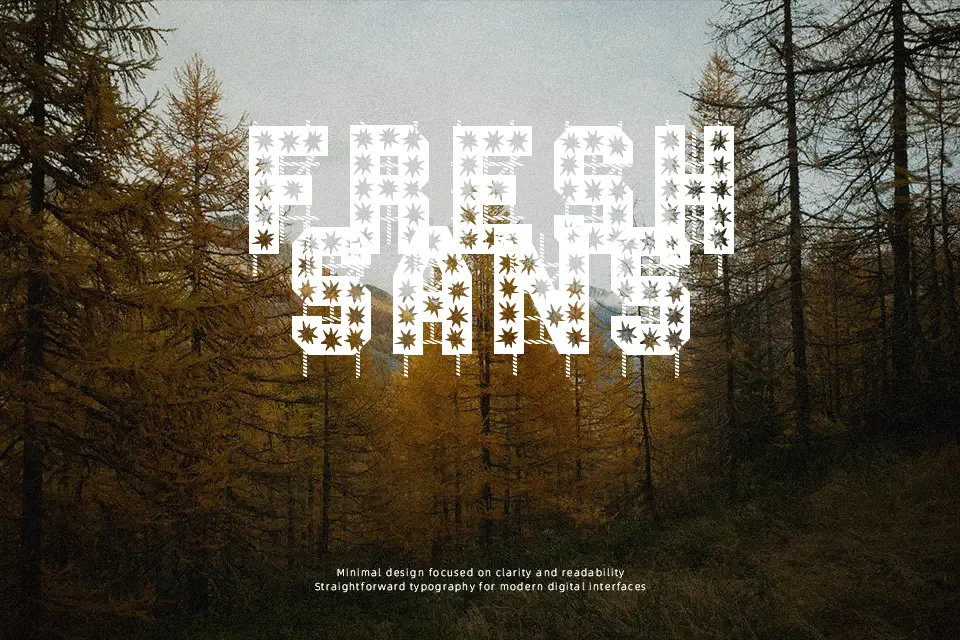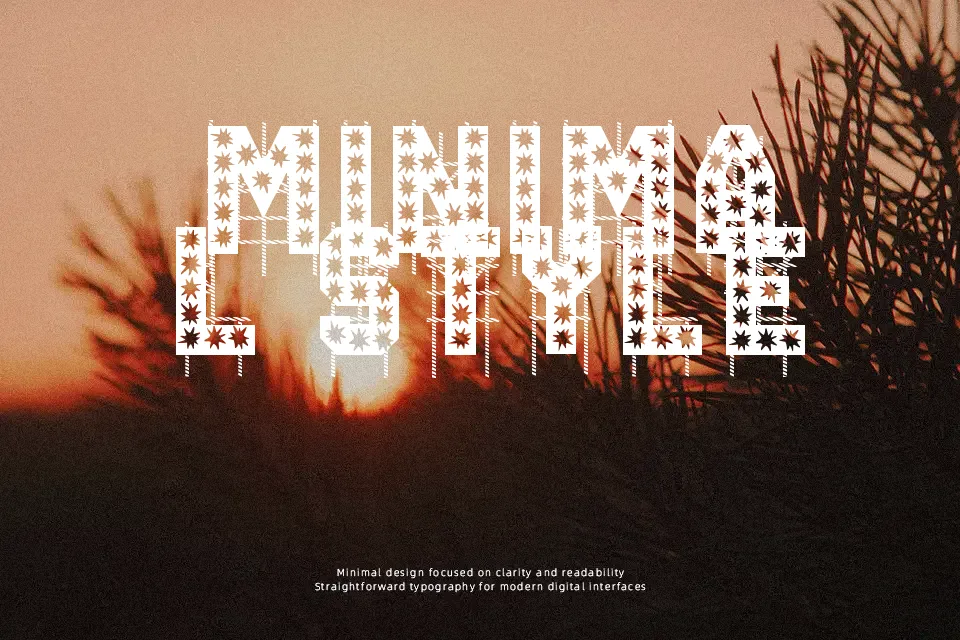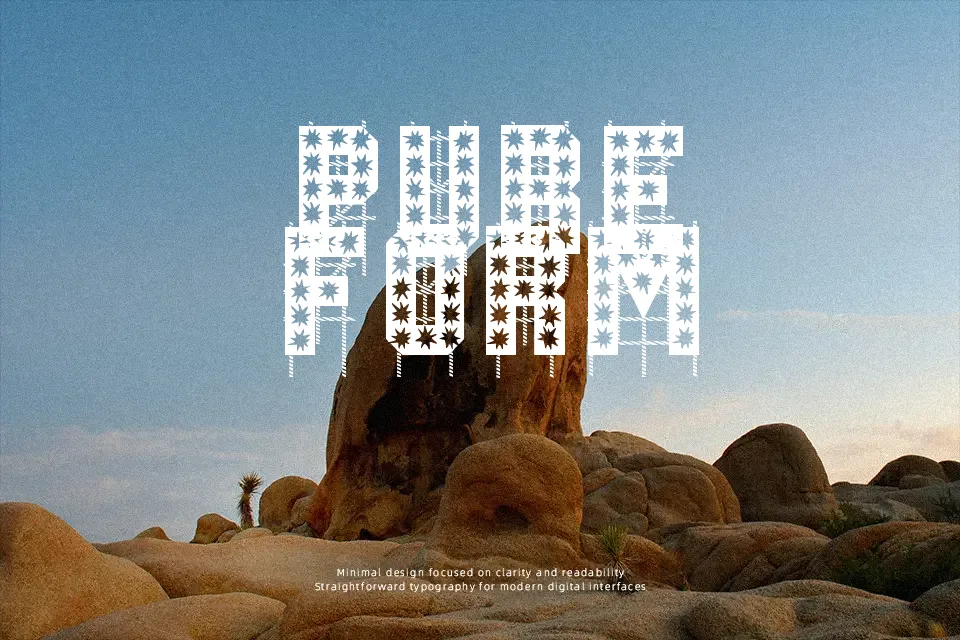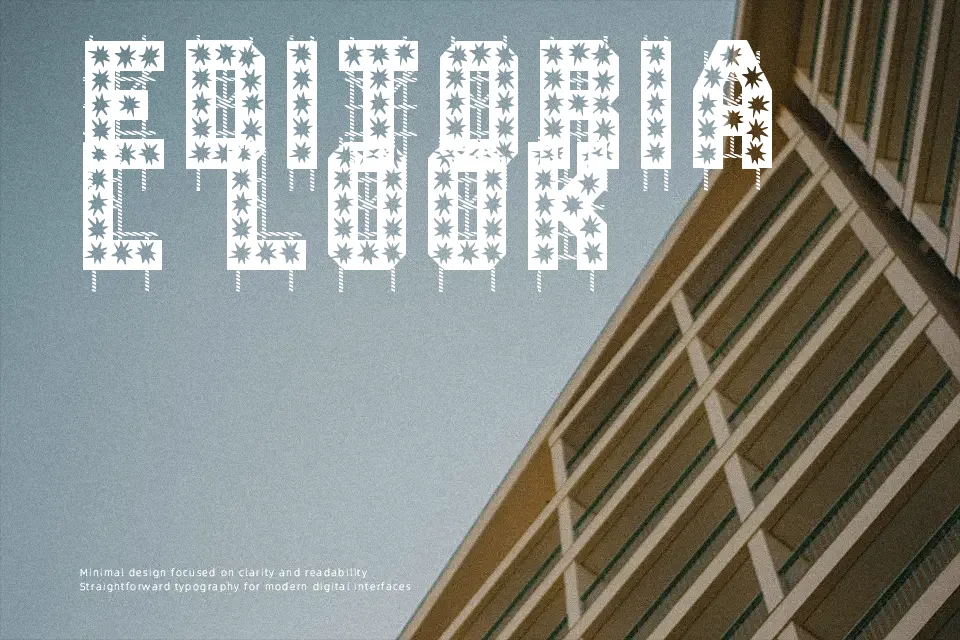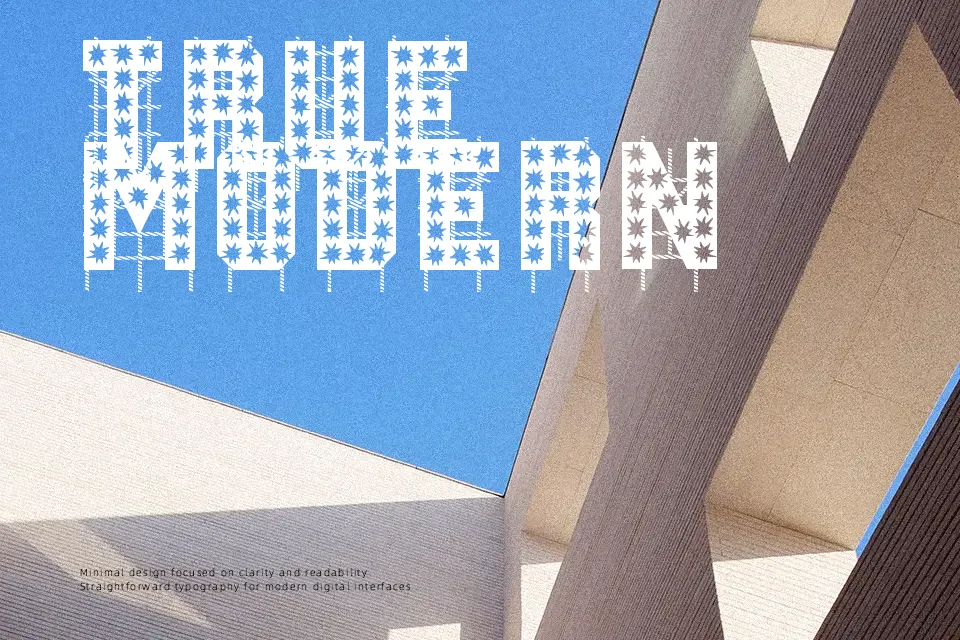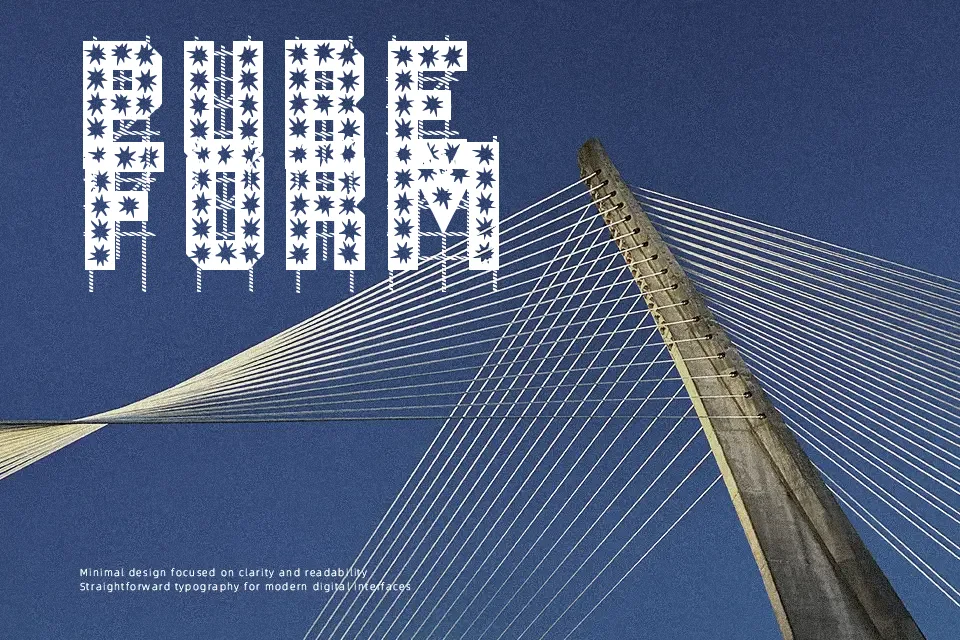
On The Tops Lights Font
On The Tops Lights Font uses bold, upright letterforms filled with small star-shaped details that create a bright decorative surface. The strokes appear substantial and the character proportions are broad enough to hold the internal pattern without losing the main silhouette at display sizes. Spacing feels most comfortable in short words and headline settings, where the repeated motifs read as part of the design. It works well for seasonal announcements, event graphics, and themed packaging. The decorative fill gives large text a clear focal point, but it can make small captions and extended reading feel busy.
Best For: holiday party posters,seasonal event invitations,festive product packaging,promotional headlines
Perfect for headline, invitation, and packaging, with a bold and decorative style.